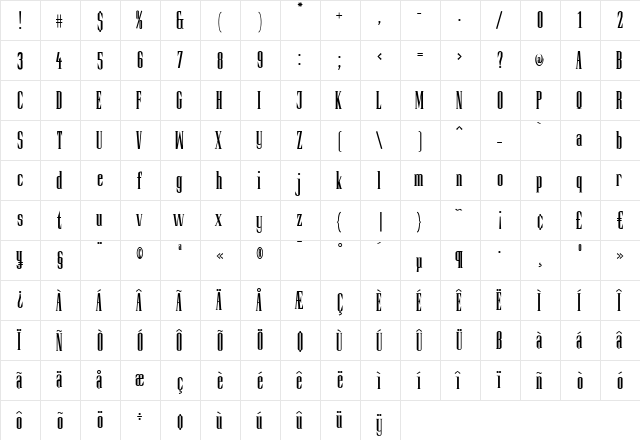
Slim Kim Bold Regular
Design Context for Slim Kim Bold Typeface
Slim Kim Bold takes a measured approach to typography — its balanced proportions and neutral character make it a reliable workhorse for both digital and print work. The heavy weight commands attention and anchors typographic hierarchies.